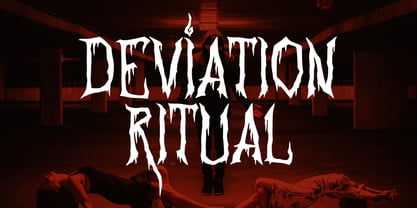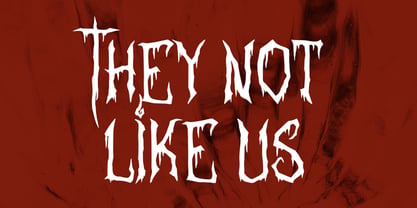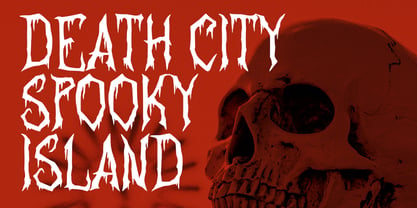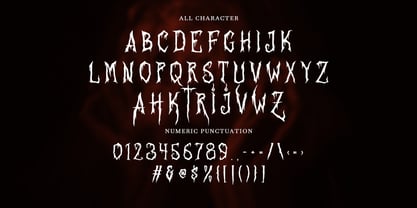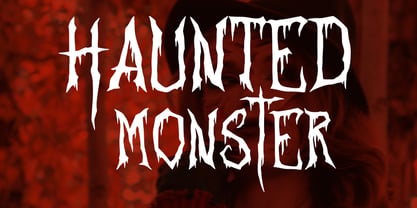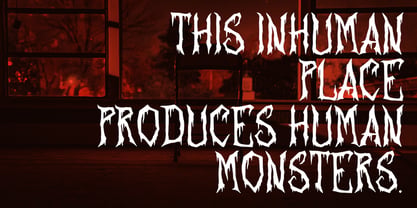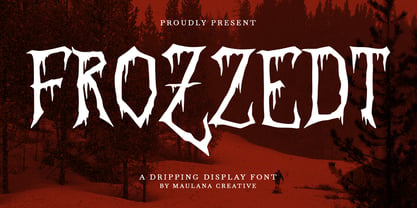
MC Frozzedt
by Maulana Creative
The MC Frozzedt Font Family was designed by Gilang Maulana and published by Maulana Creative. MC Frozzedt contains 1 styles. More about this family
Frozzedt is a dripping handmade display font. With bold stroke and fun character with alternate. To give you an extra creative work. Frozzedt font support multilingual more than 100+ language. This font is good for logo design, Social media, Movie Titles, Books Titles, a short text even a long text letter and good for your secondary text font with sans or serif. Make a stunning work with Frozzedt font.